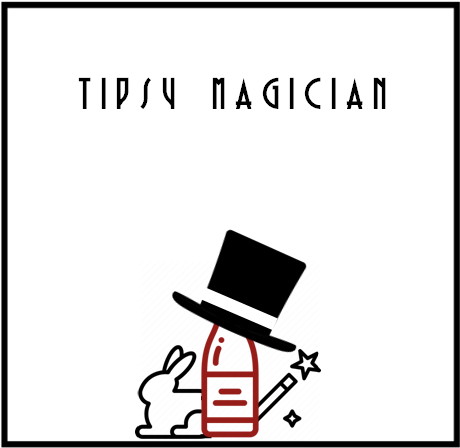
I love this kind of "S"! ❤️ The "P, U, Y, 6 & 9" needs a little polish.
the little imperfections have been properly polished as best as possible for the time being~
A really good art deco fontstruction! Is there a way to touch up the base of U?
thanks for the kind words, the u has been tweaked and polished up once again~
i want to know how you did the "@" like that with the circle inside of the other
the symbol was made with 3 of the "macaroni quarter" glyphs and one "macaroni quarter half" glyph around a single circular glyph